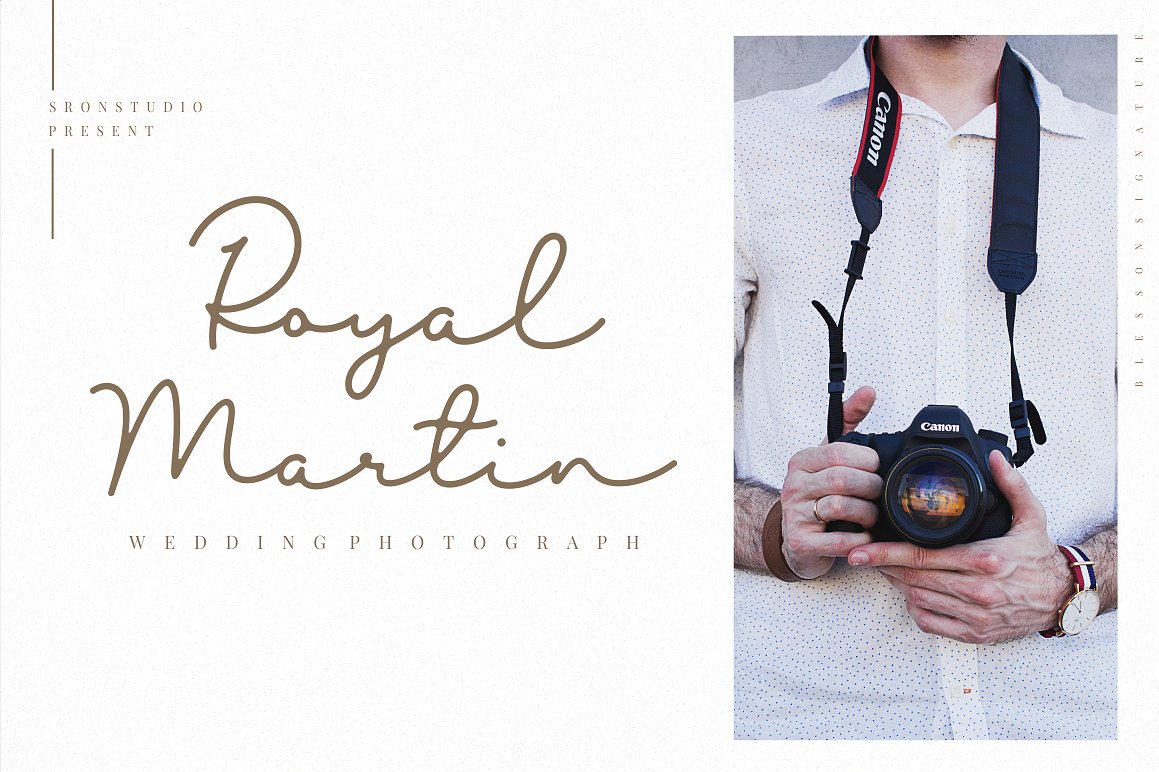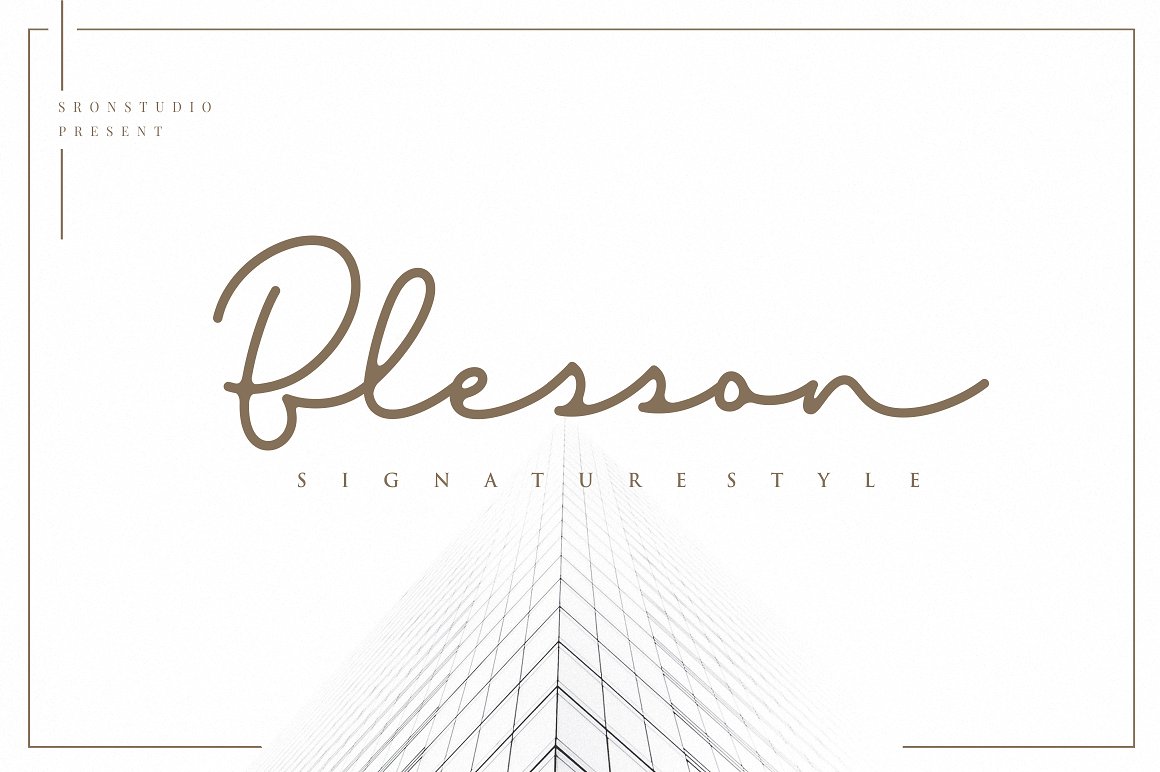
Blesson Signature
Blesson Signature Font
Introducing Blesson – a new modern signature with a fine stroke and elegant lines make this font perfect for your personal branding and any awesome project, such as : logos, invitations, stationery, wedding designs, social media posts, advertisements, product packaging, product designs, labels, photography, watermarks, special events and much more !